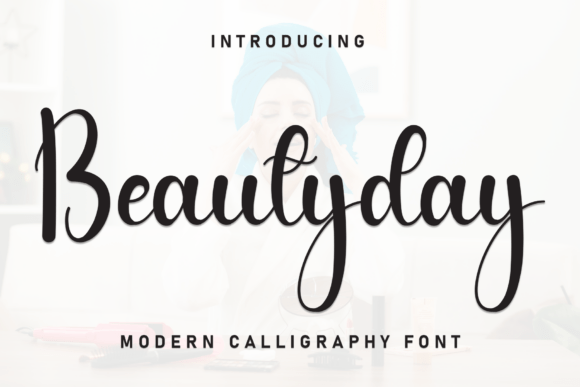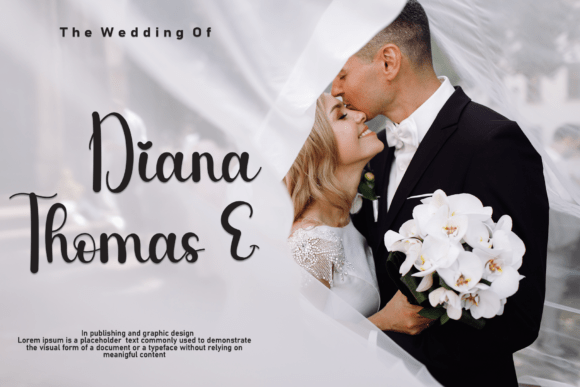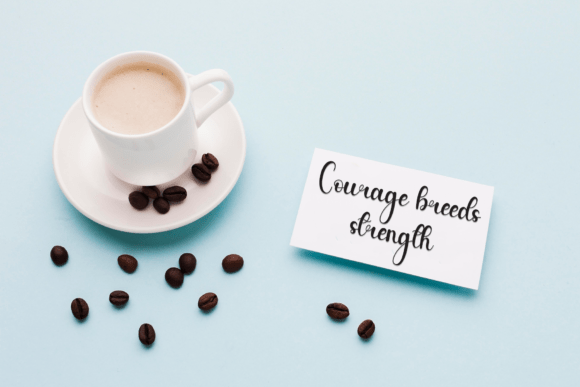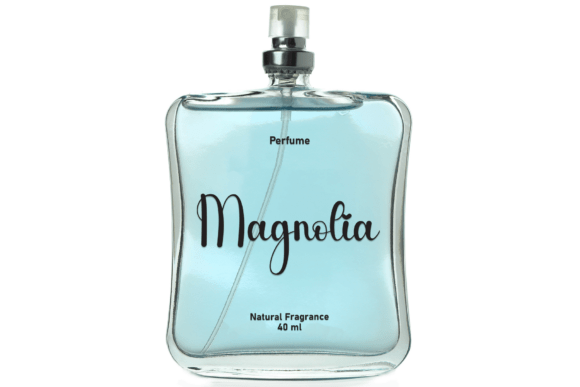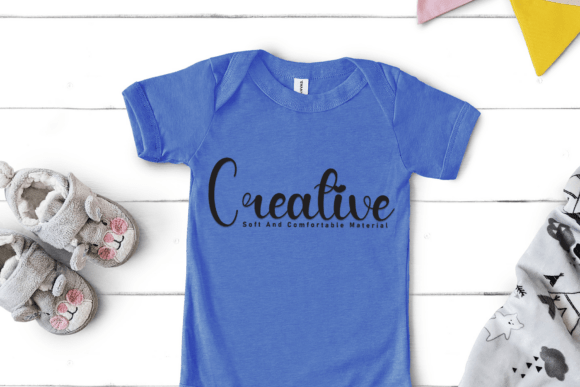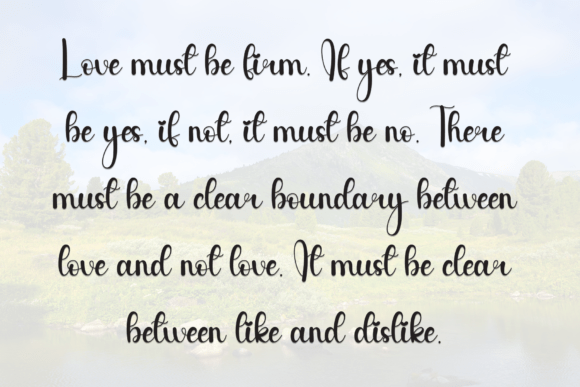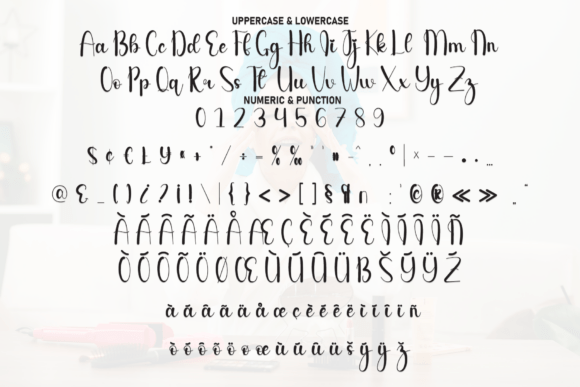
The Perfect Brushstroke: Introducing Beautyday Font
Have you ever stared at a blank canvas, waiting for the perfect idea to strike? Maybe it’s the blank page of a journal, a design project, or even a social media post. That moment of creative silence can be both thrilling and intimidating. But what if you had the perfect tool to spark your imagination? Enter the Beautyday Font, a stylish handwritten script that captures the essence of elegance and playfulness.
Designed to add a personal touch to any project, Beautyday Font is perfect for designers looking to infuse warmth, sophistication, and creativity into their work. Whether it’s a wedding invitation, a brand’s visual identity, or a social media post, this font brings a charming and natural rhythm that sets it apart from the ordinary. With Beautyday Font, you’ll be able to add a touch of magic to any project, making it truly unforgettable.
Key Features of Beautyday Font
- Unique Characteristics: Beautyday Font features a unique blend of elegance and sophistication, with intricate details and subtle flair, making it perfect for beauty, fashion, and lifestyle brands.
- Scalability: The font is highly scalable, allowing it to be used effectively in a variety of sizes, from small text to large headings, without losing its clarity or elegance.
Beautyday Font Review
As a designer, I was excited to try out the Beautyday Font, a new addition to the world of digital typography. Overall, I have mixed feelings about this font, but let’s dive into what works and what doesn’t.
- Unique aesthetic: Beautyday Font has a distinct and eye-catching design that’s perfect for creating a memorable brand identity.
- High-quality rendering: The font is well-crafted, with clear and crisp lines that make it suitable for both print and digital applications.
- Customizable: Beautyday Font offers various styles and weights, giving users the flexibility to adjust the font to suit their specific needs.
- Limited legibility: While the font is visually appealing, its unique design can make it challenging to read, especially at smaller font sizes.
- Not suitable for body text: Beautyday Font is best used as a headline or title font, as its unique design can be overwhelming when used for extended blocks of text.
- Not a comprehensive font family: The font family is relatively small, which may limit its usability in certain projects.
While Beautyday Font has its strengths, its limitations prevent it from being a go-to font for all my projects. However, it’s still a great choice for specific applications, such as creating attention-grabbing headlines or logos. With some careful planning and consideration of its limitations, Beautyday Font can be a valuable addition to any designer’s toolkit.
For optimal results, use the Beautyday Font in headings and titles to create a visually appealing design. This font is particularly suitable for creative and beauty-related projects, such as makeup tutorials, fashion blogs, or wellness websites.
Experiment with different font sizes and styles to create a unique and eye-catching design.